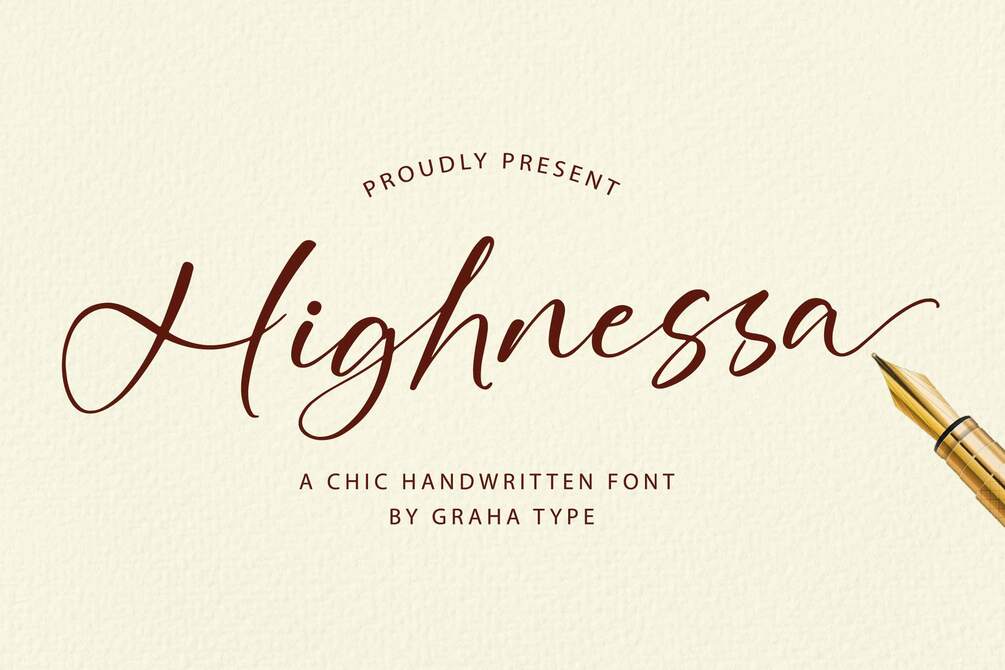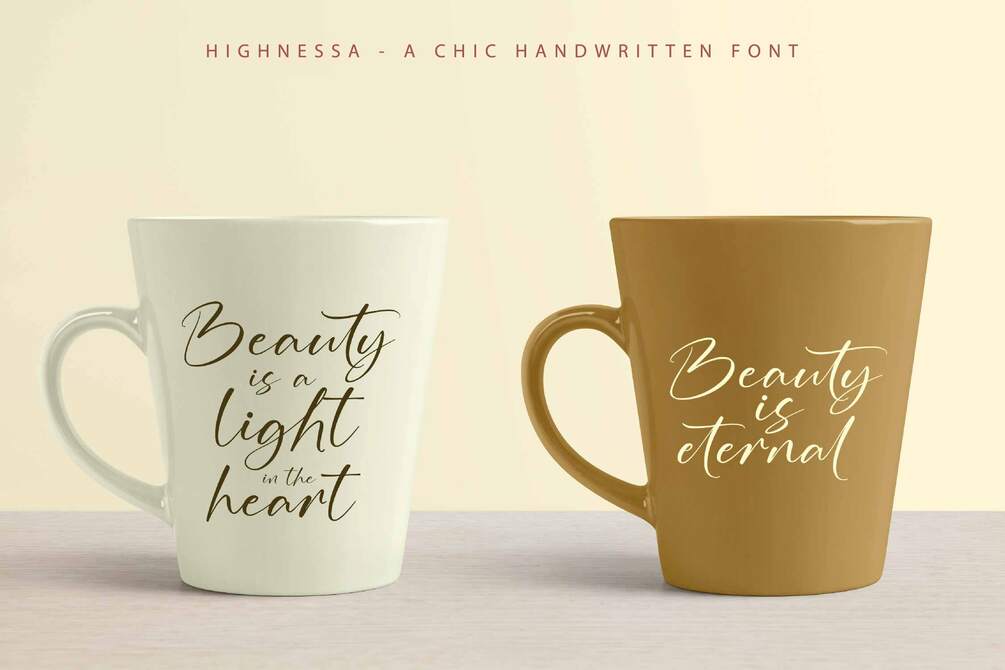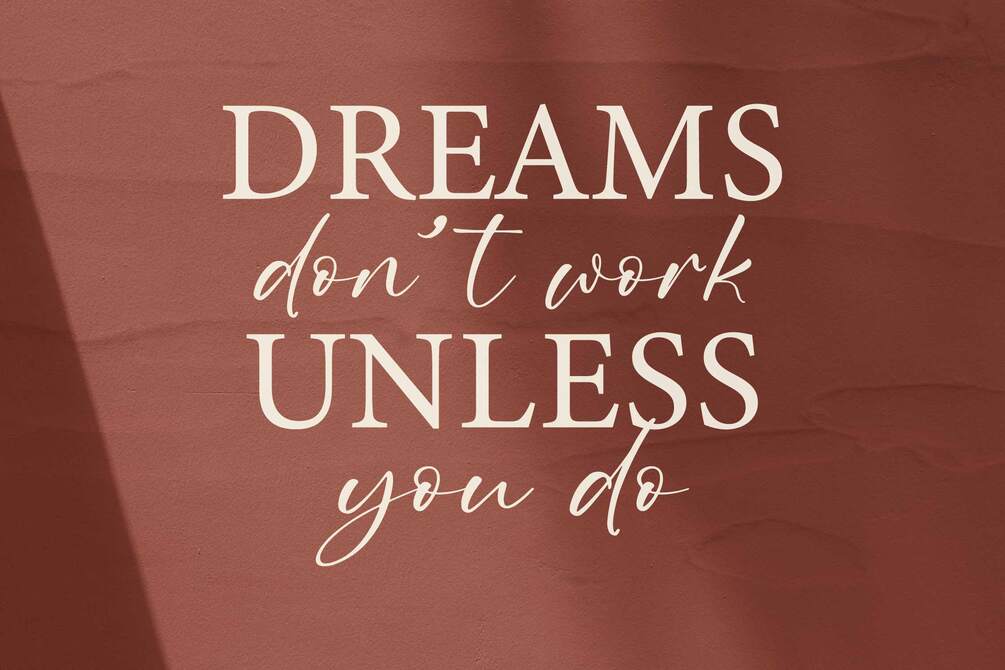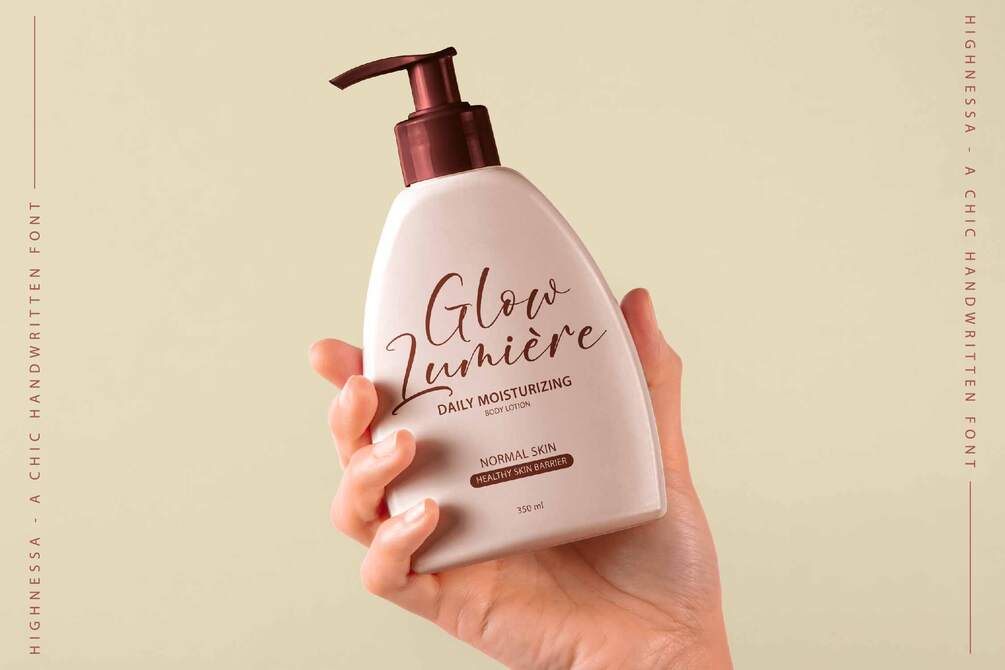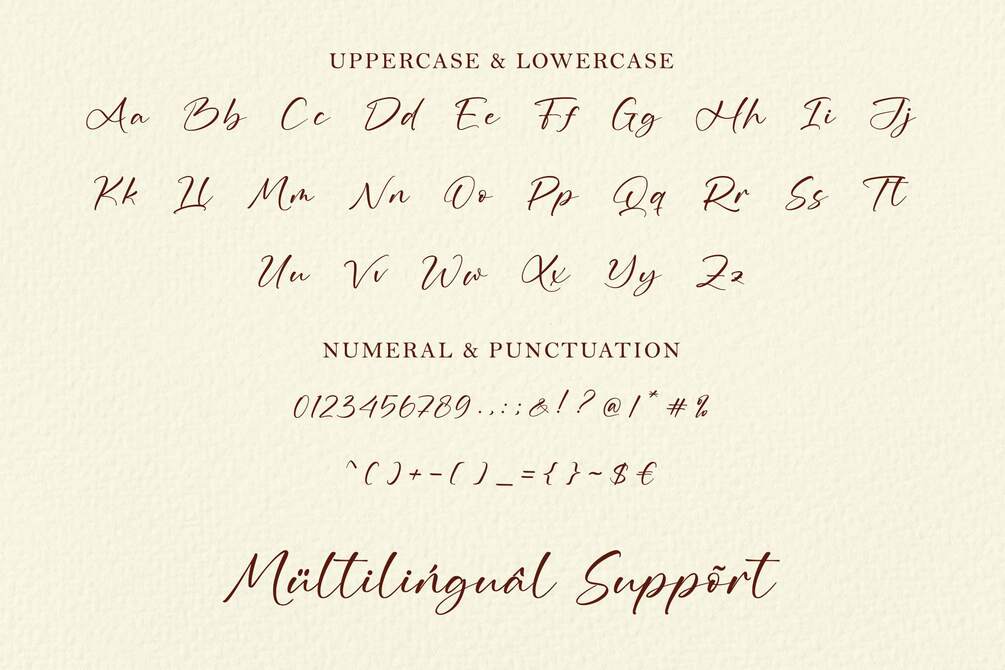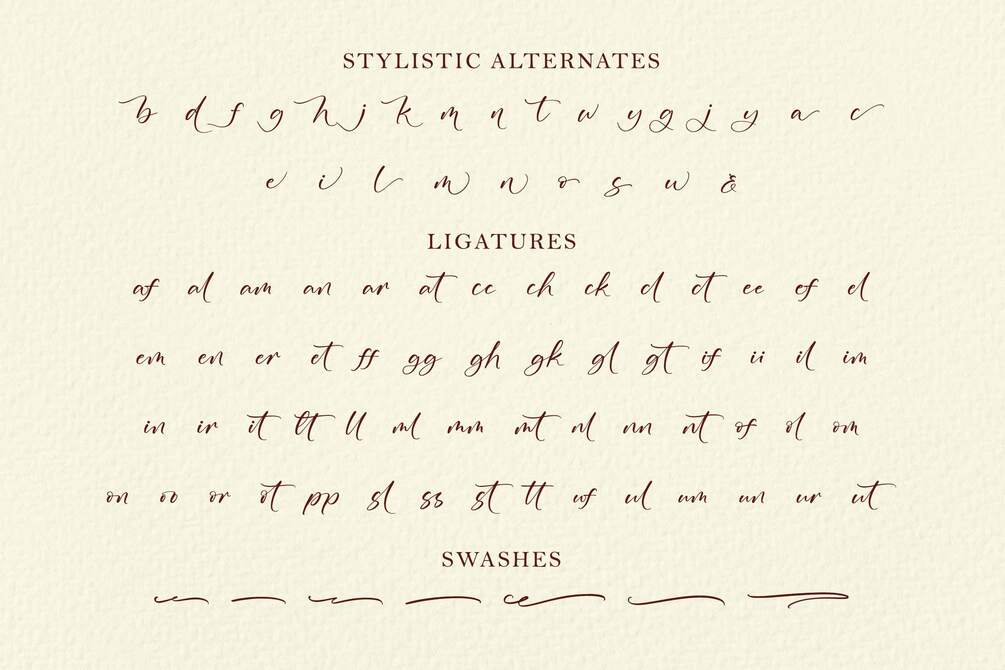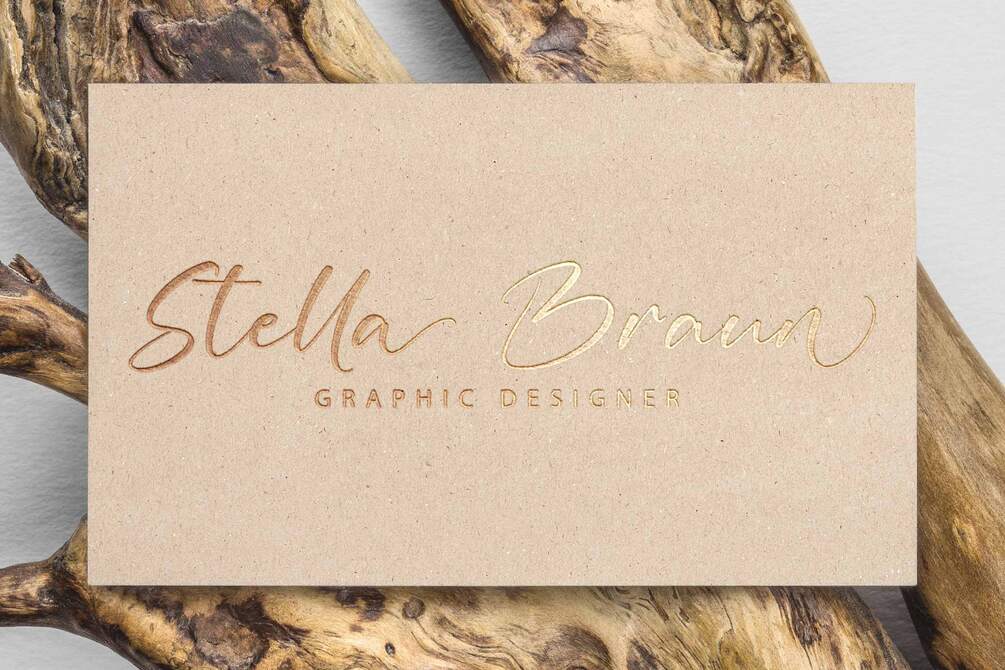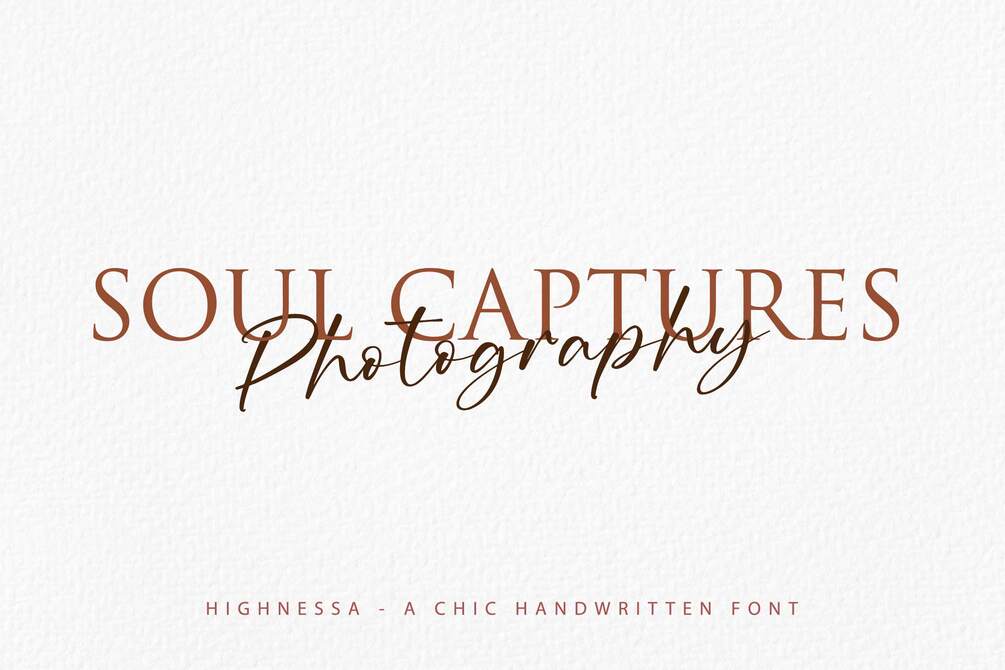
Highnessa - Chic Handwritten Font
Highnessa is a beautifully crafted handwritten font renowned for its chic style. Its every stroke and curve exudes a distinctive allure, Each stroke and curve in this font possesses a unique allure, effortlessly elevating the quality of any project, whether it's for creating invitations or designing digital content.
This font provides an authentic touch that flows smoothly across various themes and platforms, enriching your designs with consistent and versatile charm. Enhancing your creations and invoking a feeling of creative individuality.
• Alternates and Ligatures
• Multilingual Support